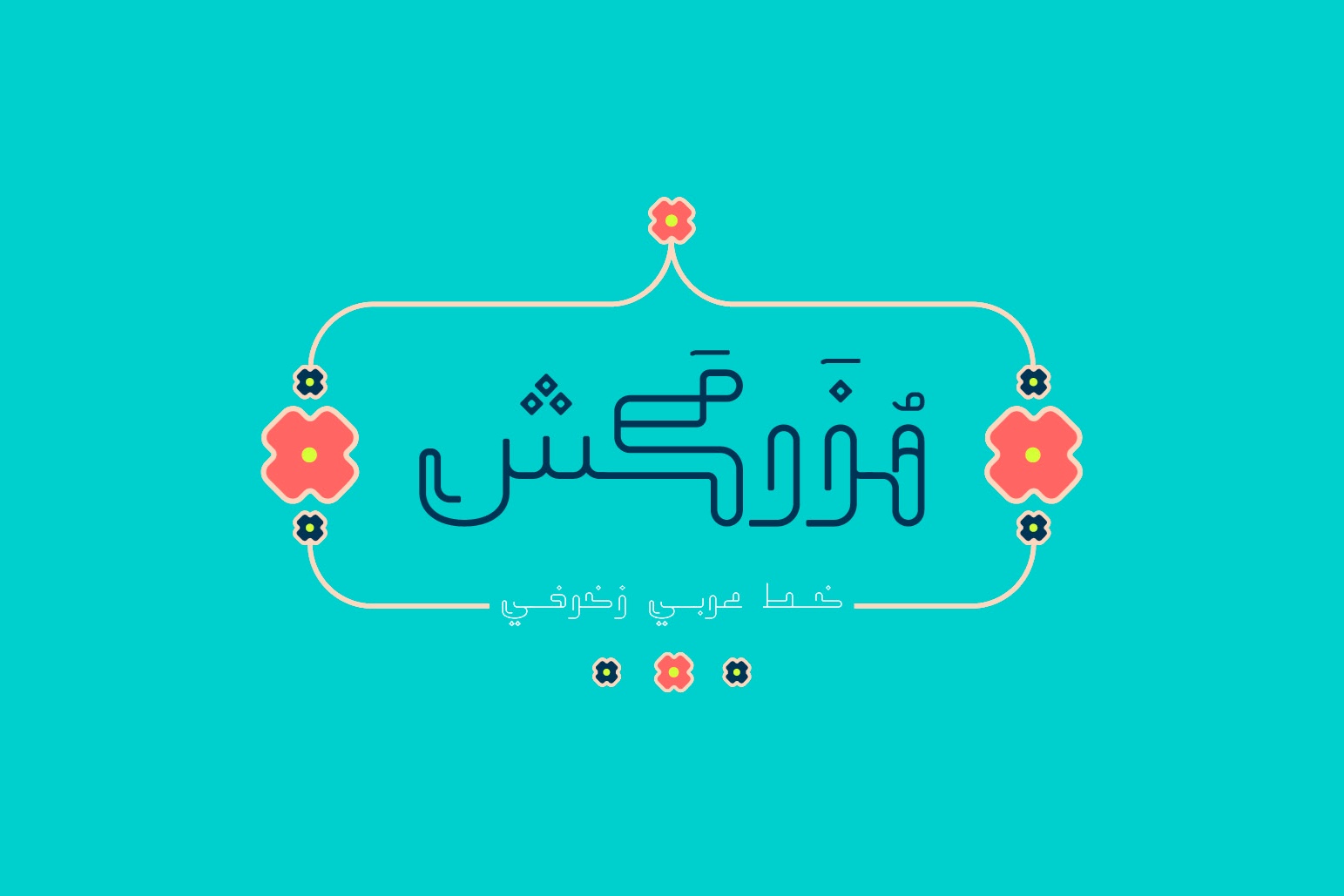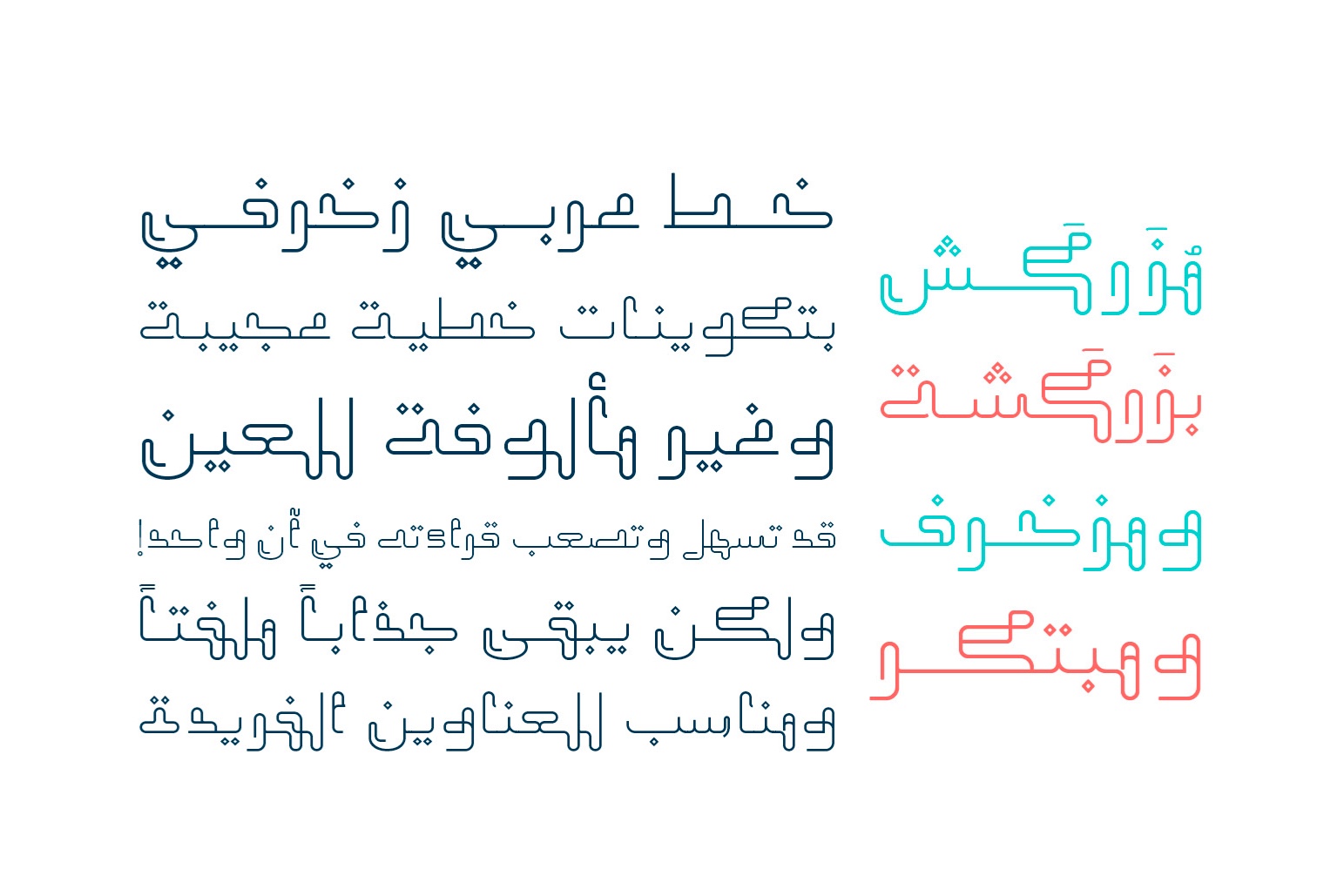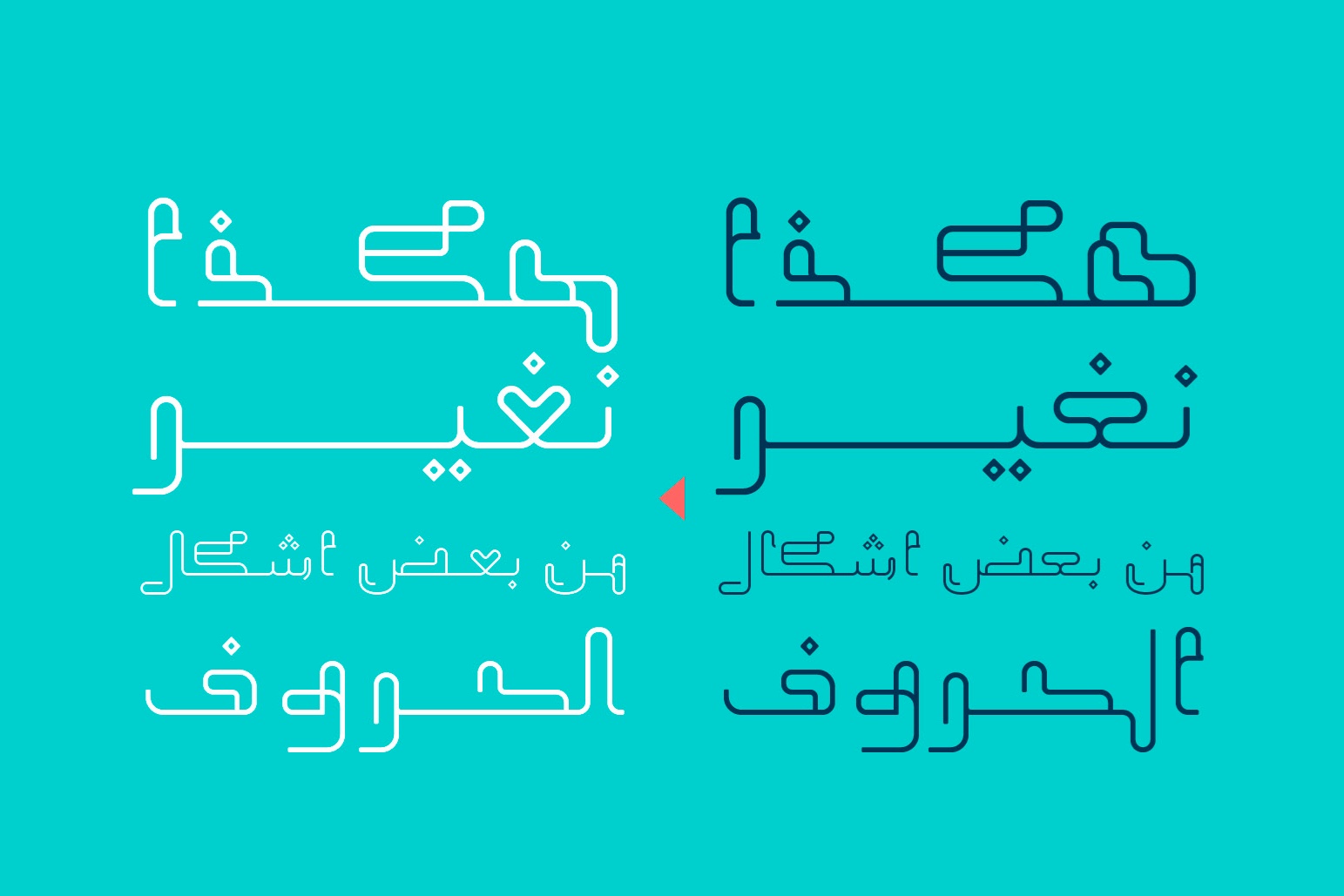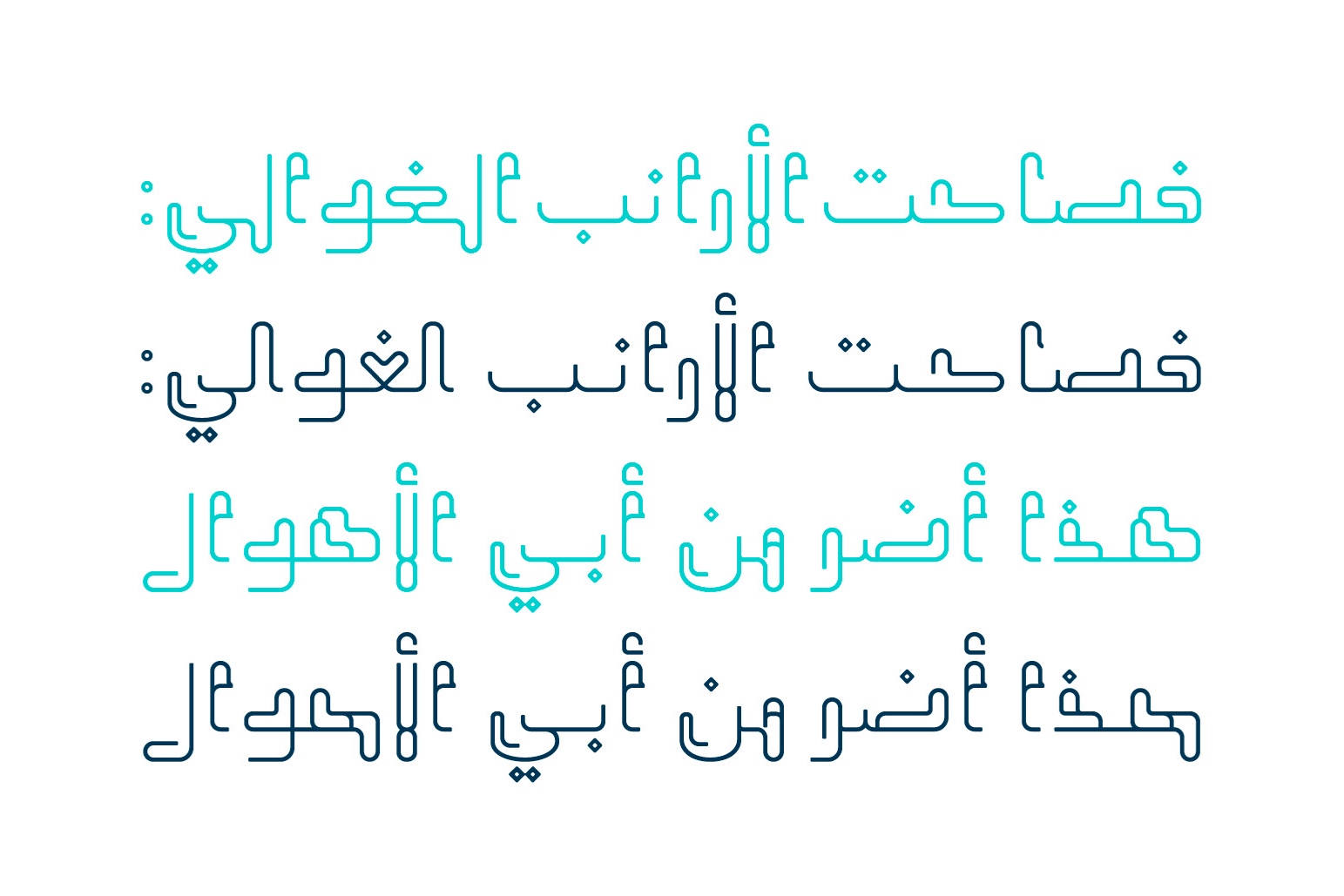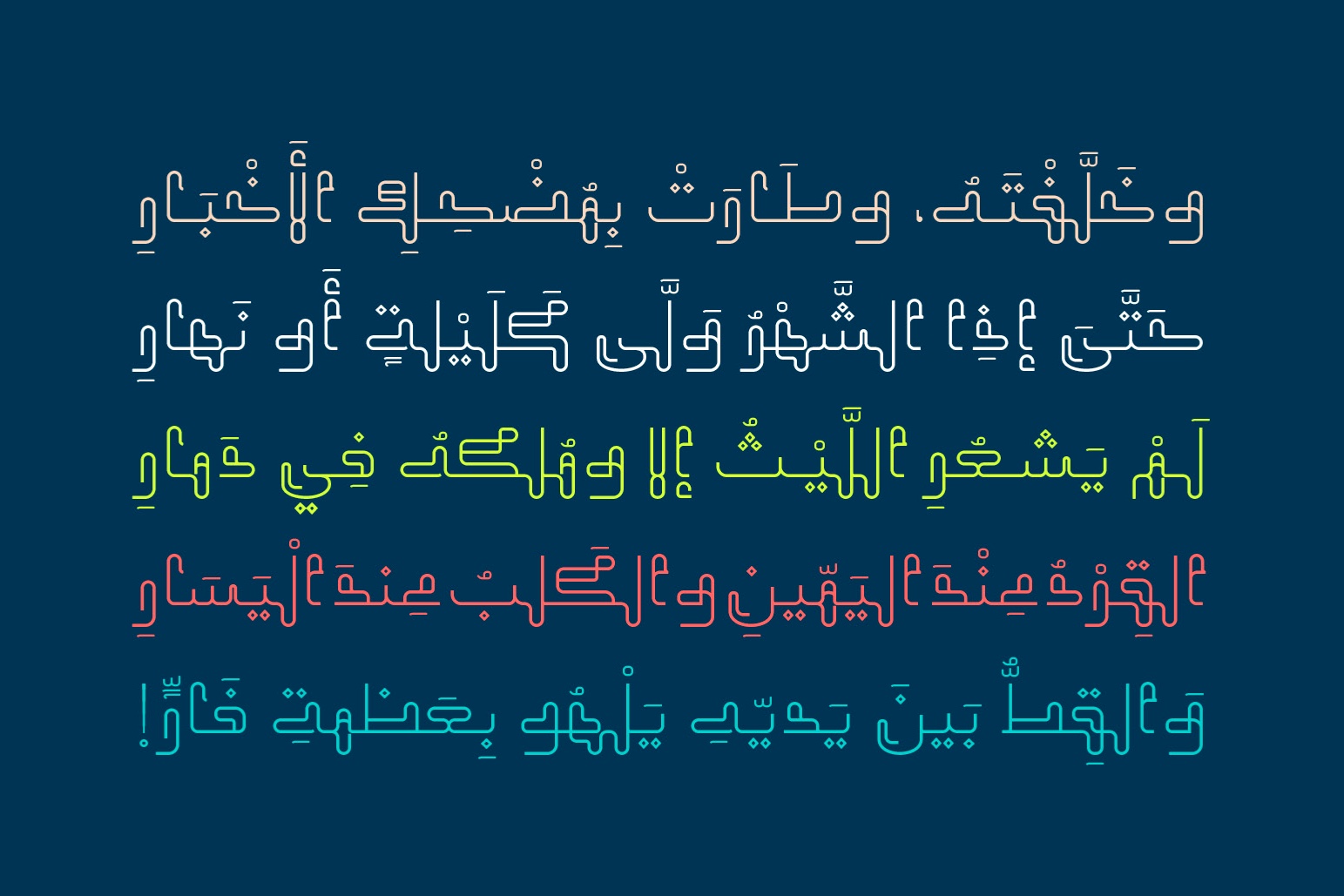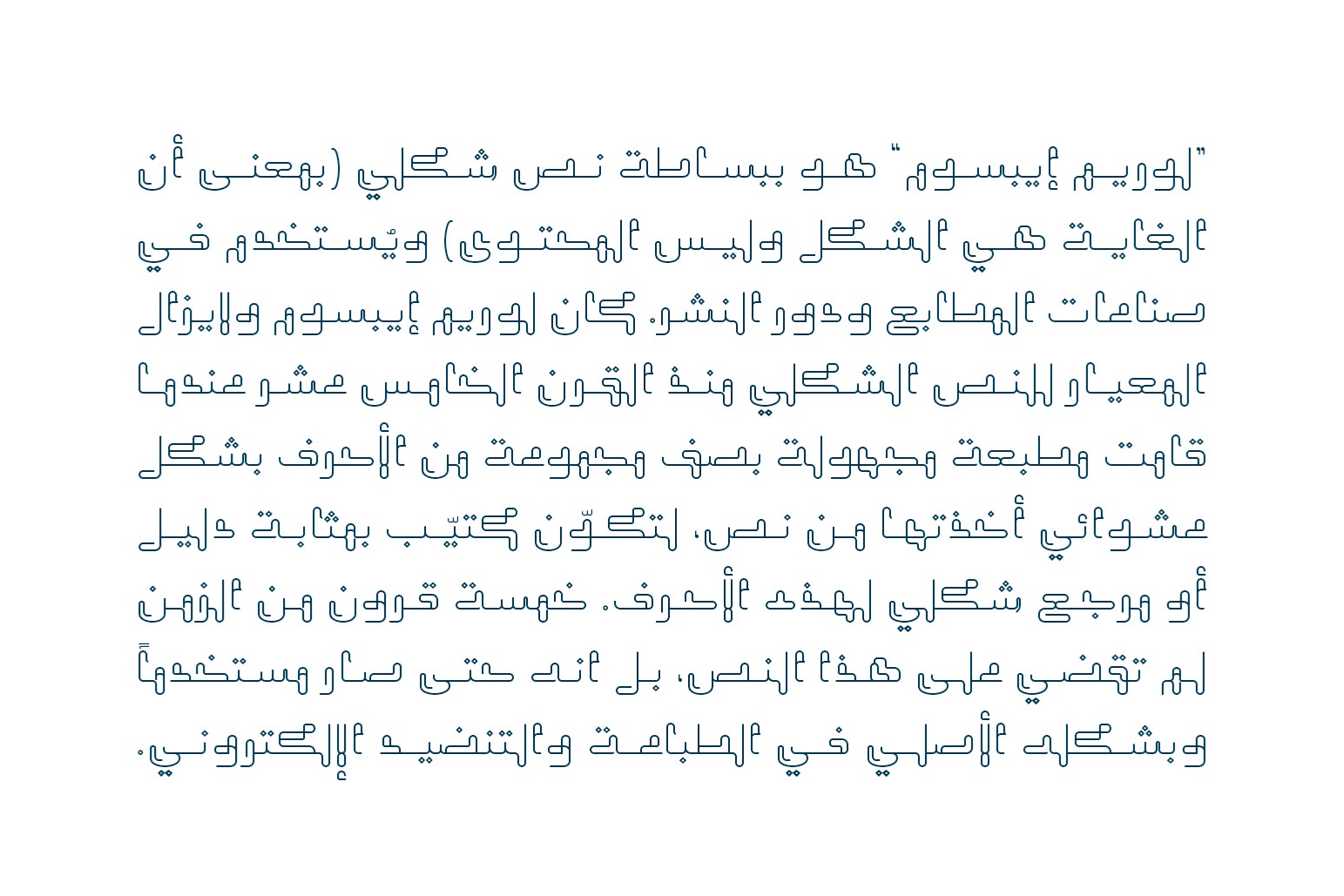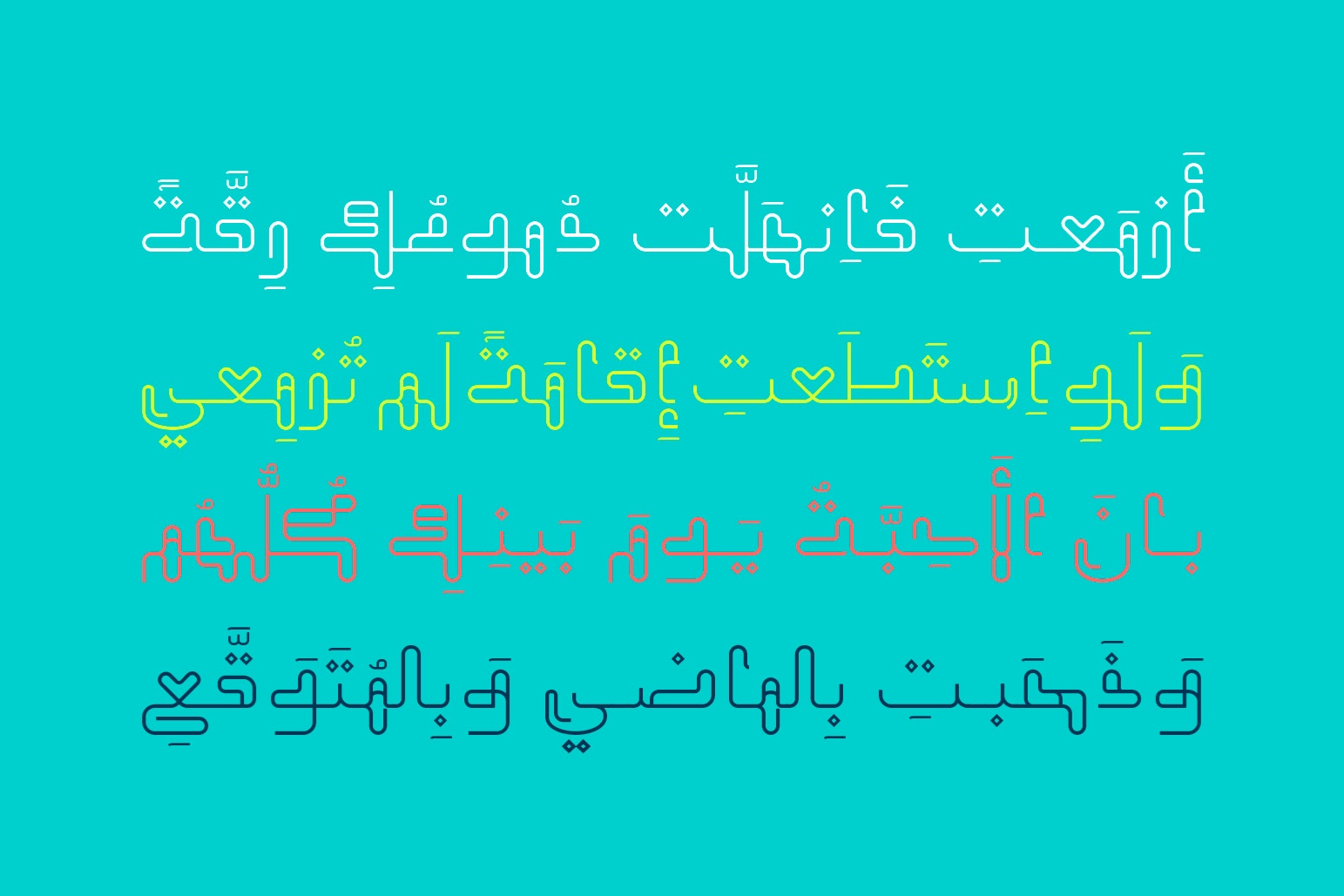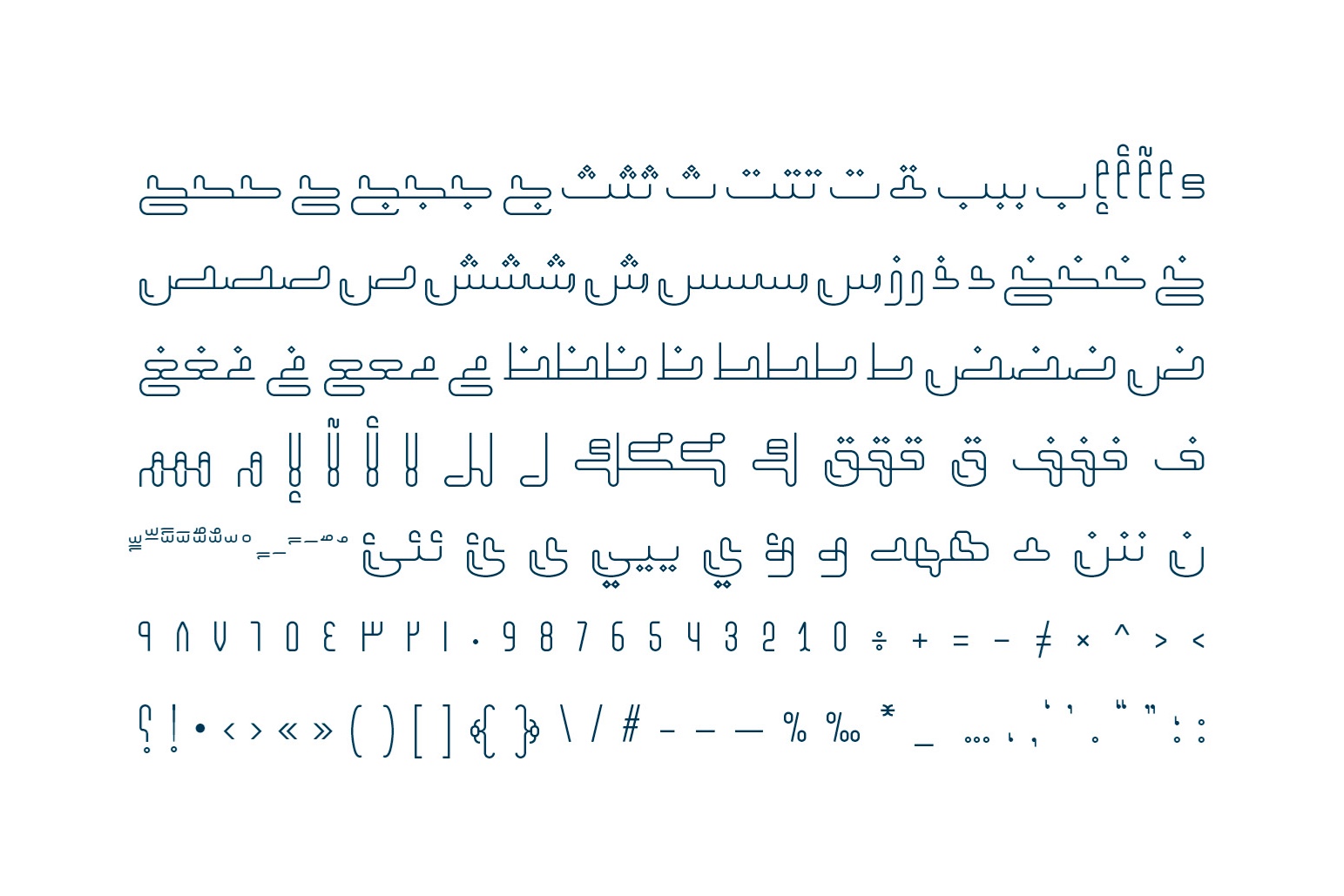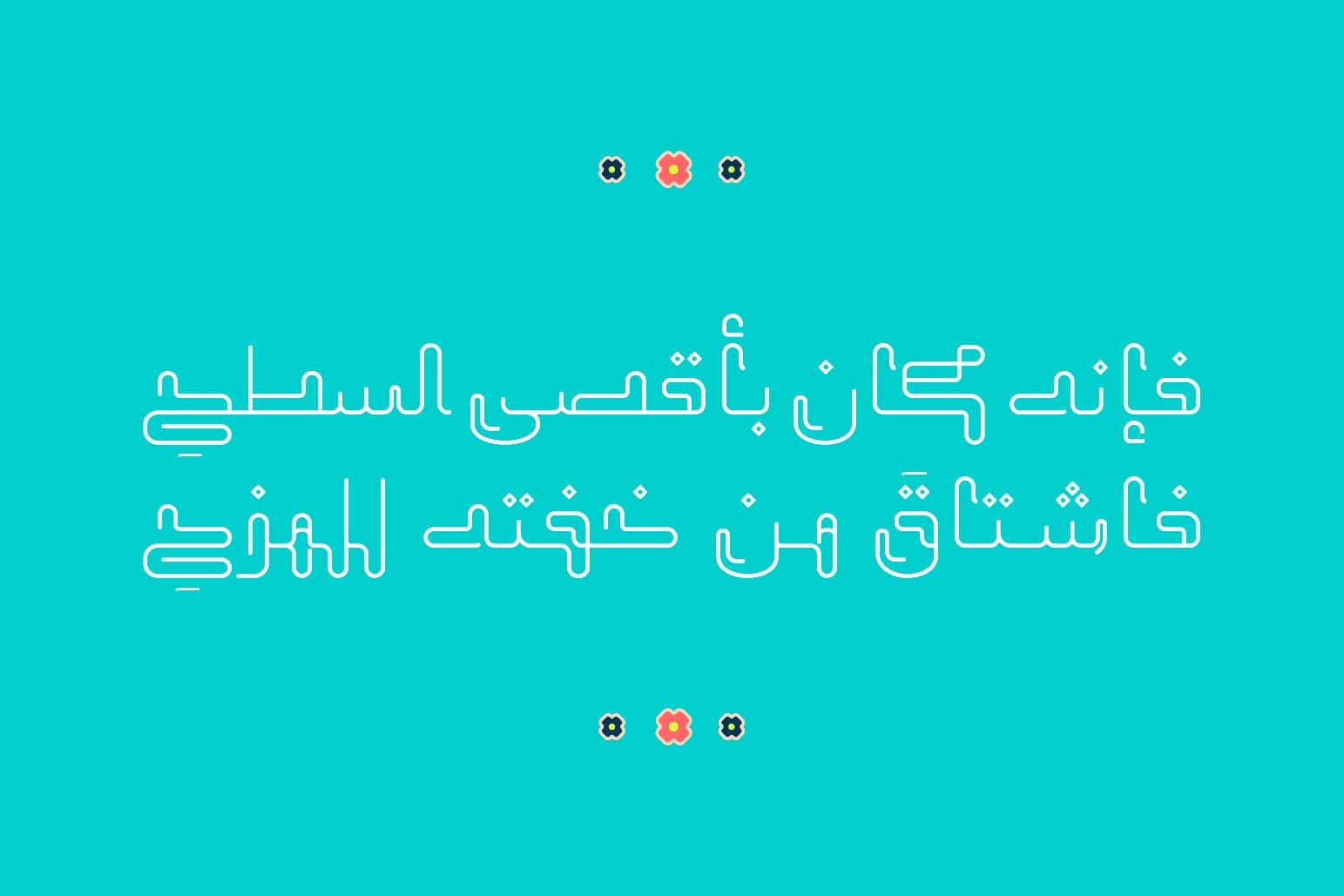
Mozarkash (the Arabic word for 'Emblazoned') is an Arabic display font with a unique decorative design. It suits various range of creative applications including print, embroidery, web and advertising. Mozarkash supports Windows, Mac and mobile applications.